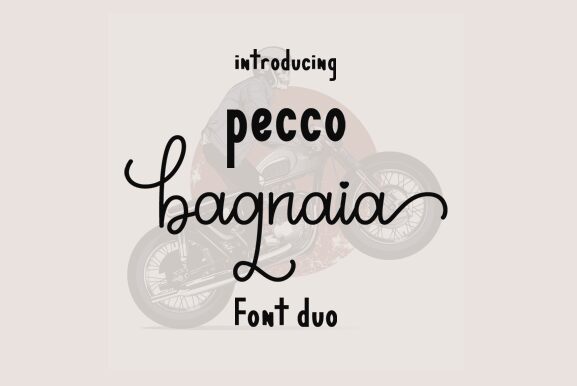
Pecco
Pecco, designed by Cavalera Creative, is a captivating display font with a condensed width that commands attention. Its sleek and modern style makes it perfect for branding projects that require a bold and impactful presence.
Use Pecco to create eye-catching logos, headlines, and packaging designs that stand out from the crowd. With its unique personality and distinctive letterforms, this font adds a touch of sophistication to any project. Whether you're working on advertising campaigns or website designs, Pecco is the ideal choice for conveying elegance and professionalism.